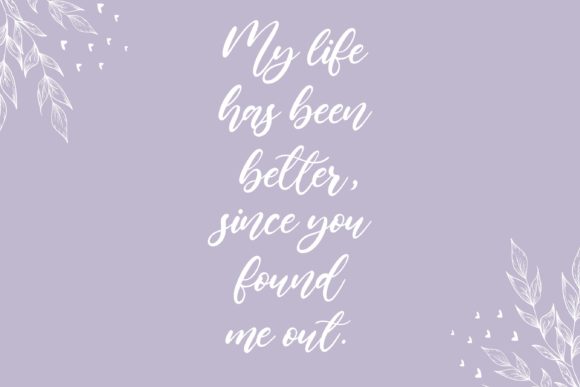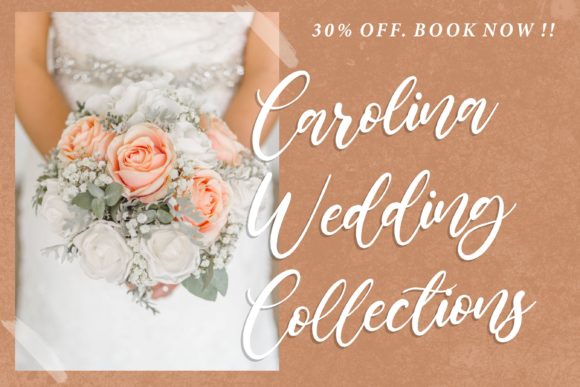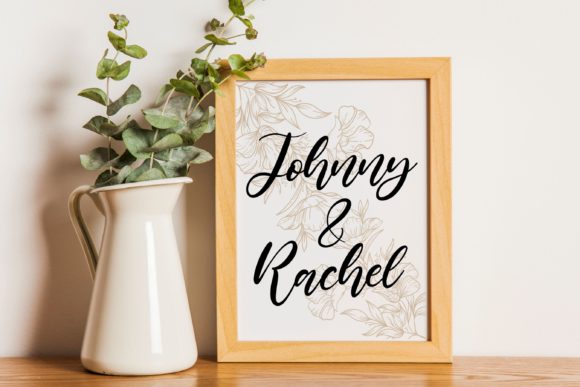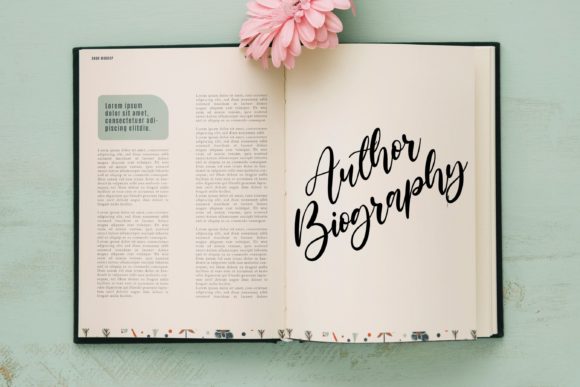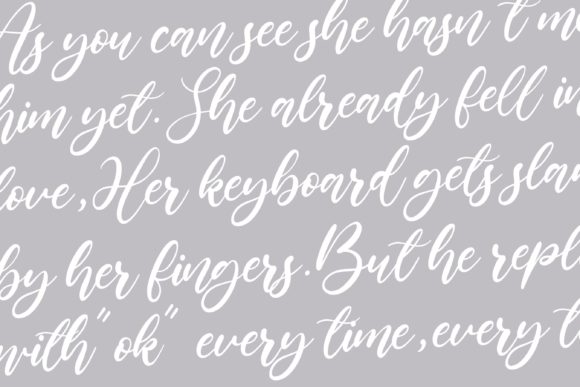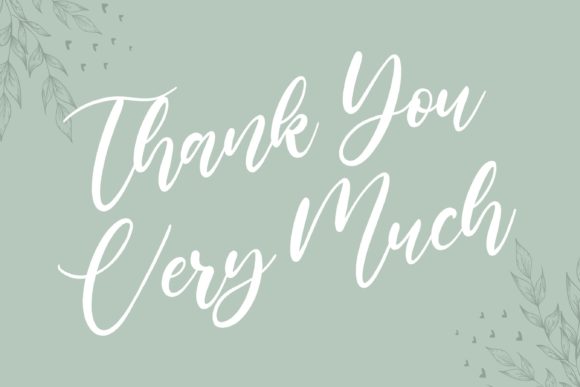
Introduction to Lilybud Font
Lilybud is a sweet and flowing handwritten font.
Created with the help of a beautiful brush pen, Lilybud is masterfully designed to become a true favorite .
Key Features of Lilybud Font